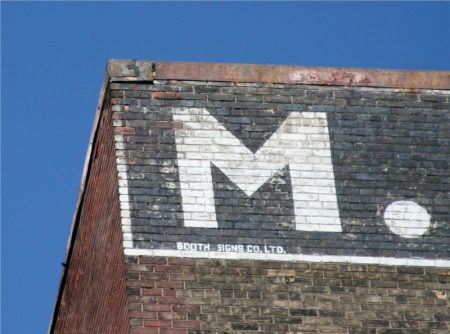
The signs painted on the sides of buildings often have a ghostly quality. The letters fade into the brickwork but still persist, linking us to an older version of our city.
In this shot I chose to focus on a single letter, a magnificent “M.” It’s in great condition, so this sign may not be as old as some of the other specimens you see around town.
Beneath the letter is a credit for the company that made the sign. Imagine an anonymous painter from way back when adding this final touch, like an artist signing a canvas.